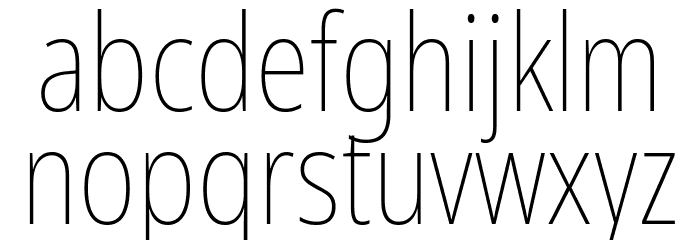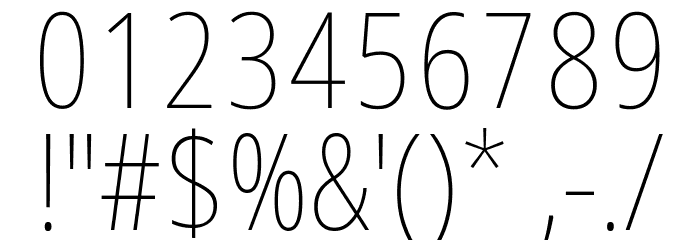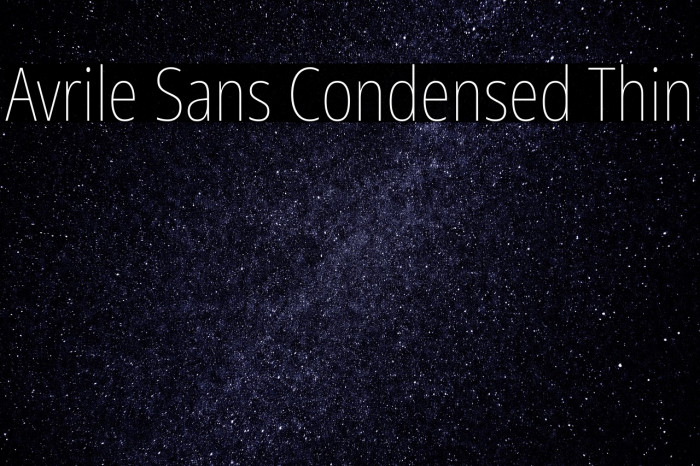
Avrile Sans Condensed Thin Font
This font features a sleek and modern sans-serif design with a condensed width, giving it a streamlined and efficient appearance. The thin strokes contribute to its elegant and minimalistic style, making it suitable for contemporary design projects. The characters are well-proportioned, with a consistent height and width that ensures readability across various sizes. The font includes a full set of uppercase and lowercase letters, numerals, and a variety of special characters, providing versatility for different applications. Its clean lines and geometric shapes make it ideal for projects that require a modern and professional look.
A modern, thin, and condensed sans-serif font with clean lines.
- Proposed Projects: Ideal for branding, editorial design, web design, and advertising where a modern and sleek appearance is desired.